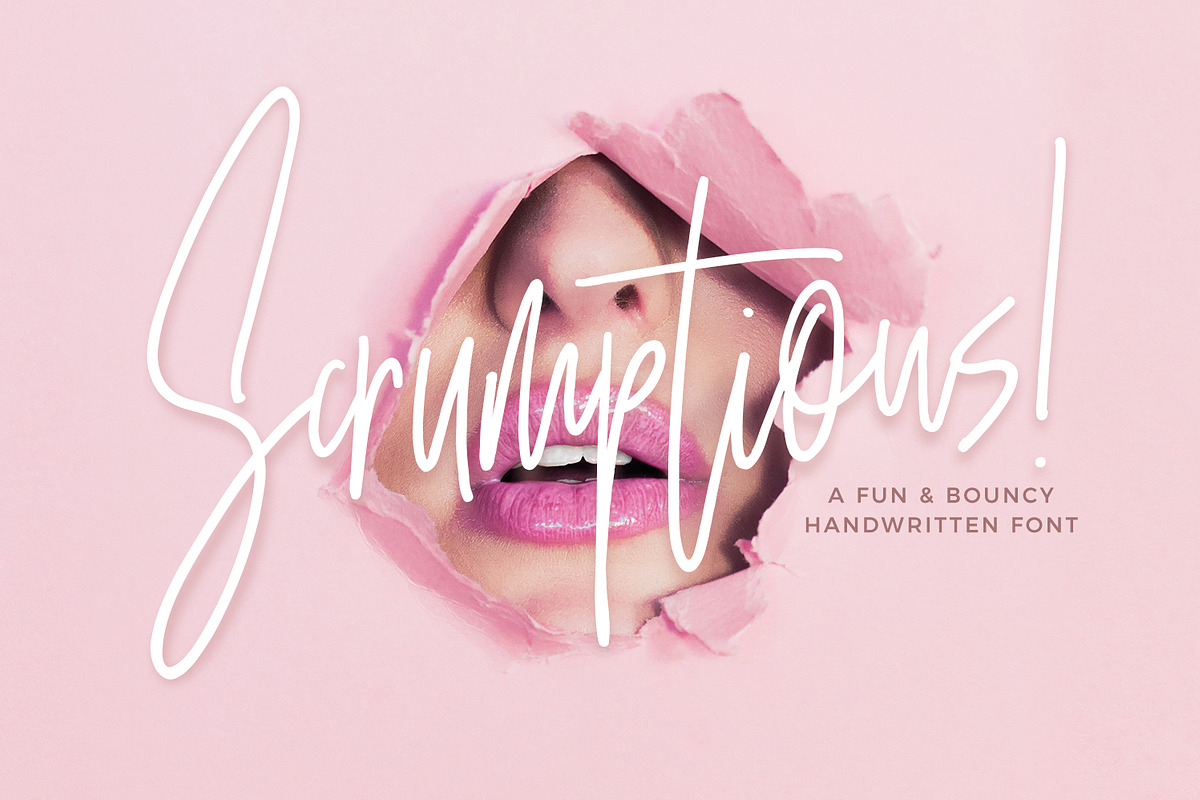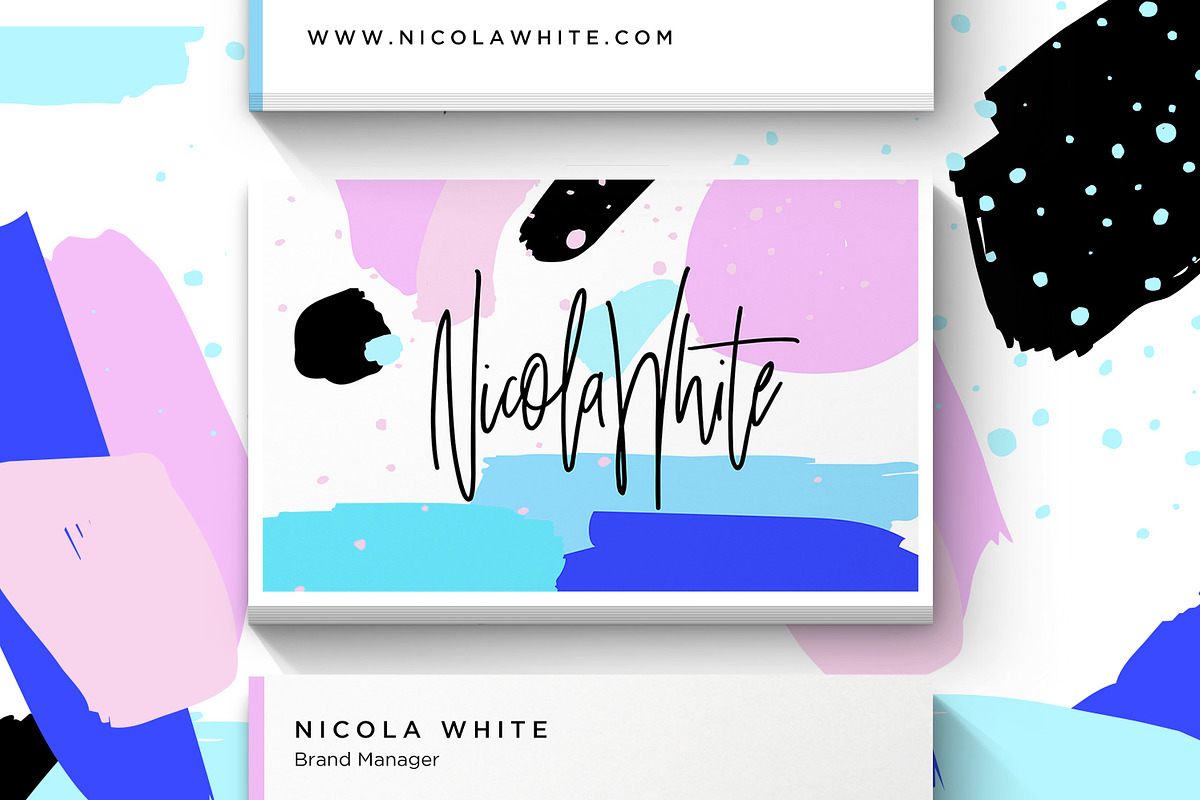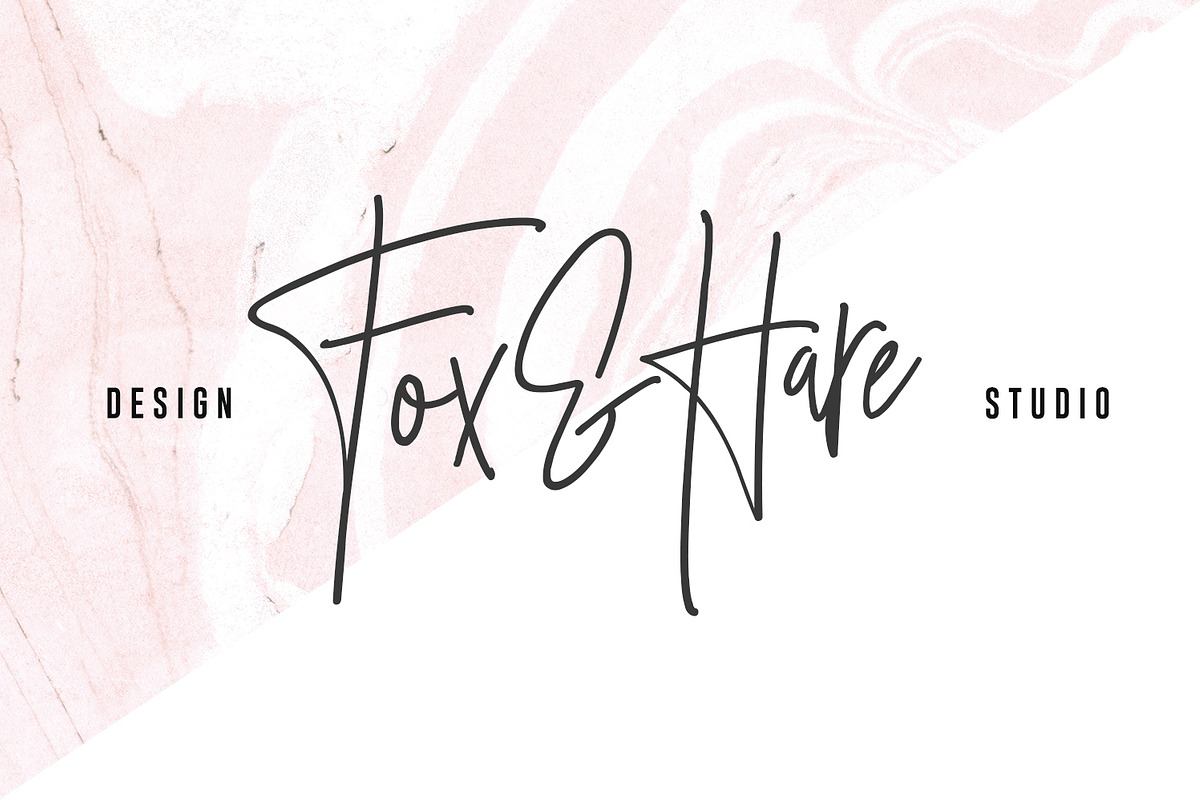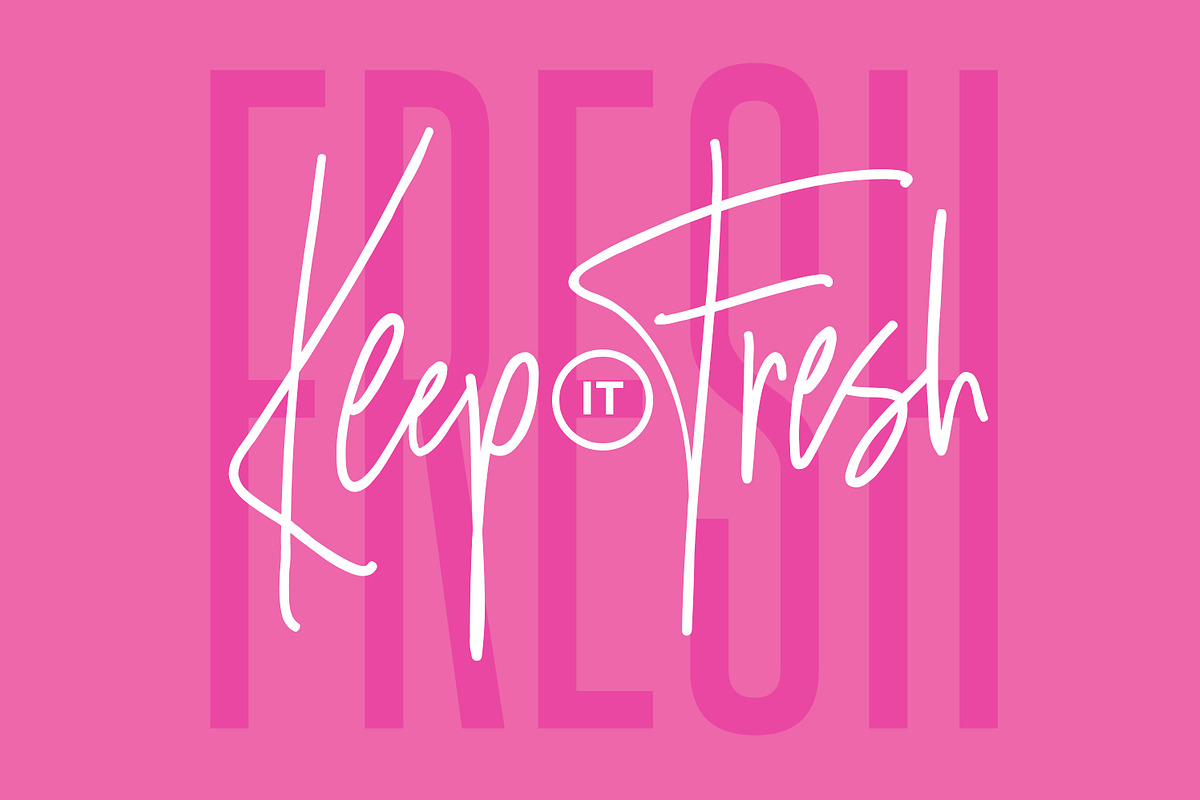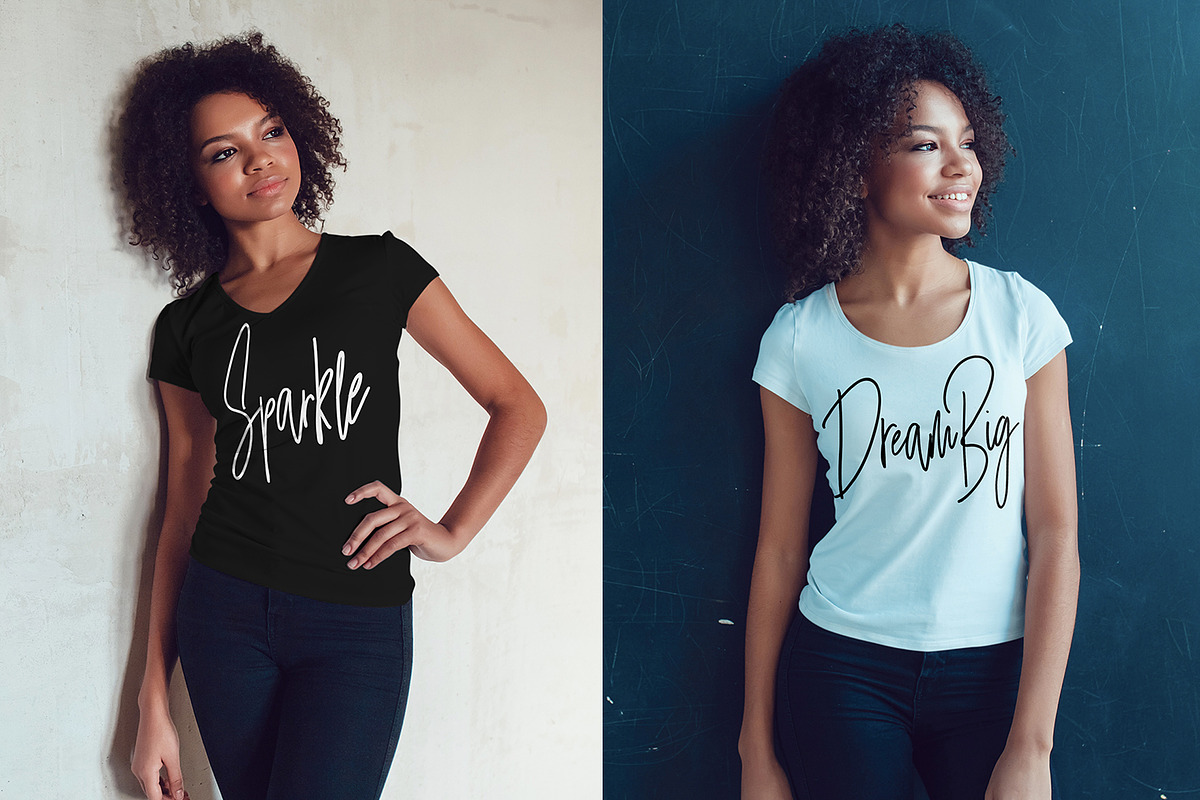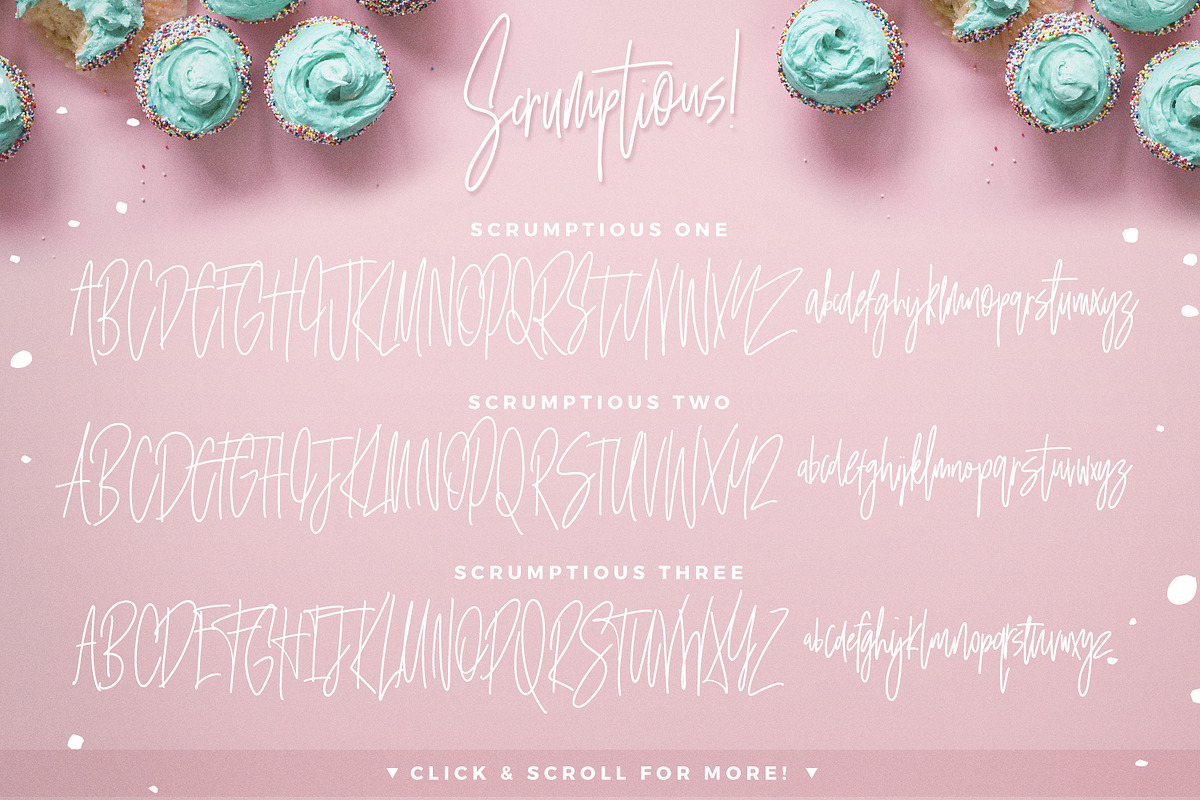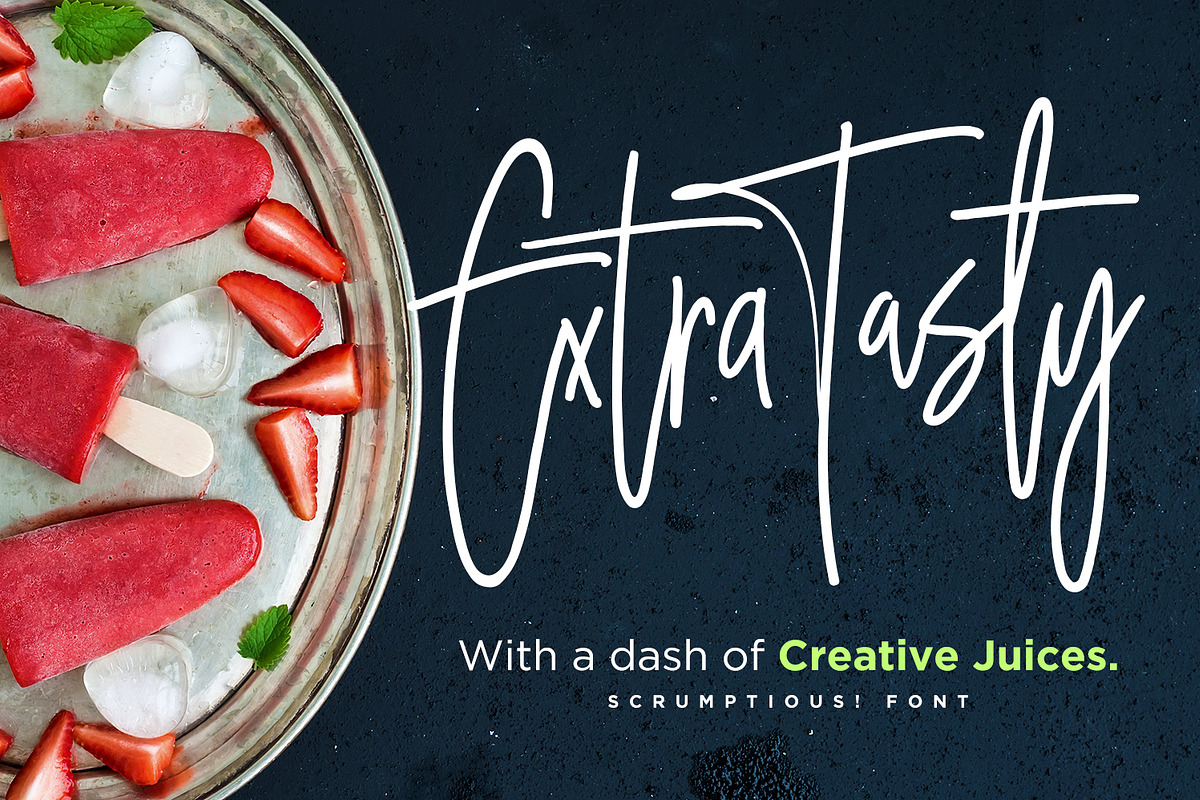
Scrumptious! Font
Scrumptious! Font by Sam Parrett is a font selected for branding, posters, packaging, typography.
- includes THREE interchangeable character sets, giving you a massive amount of customisable layout options for each word.
- Scrumptious One • A clean handwritten font containing upper & lowercase characters, numerals and a large range of punctuation.
- Scrumptious Two • This is a second version of Scrumptious, with a completely new set of upper & lowercase characters.
- Scrumptious Three • You guessed it; a third version of Scrumptious, with another completely new set of upper & lowercase characters - giving
Scrumptious! Font by Sam Parrett fits naturally into Branding, posters, packaging, typography.